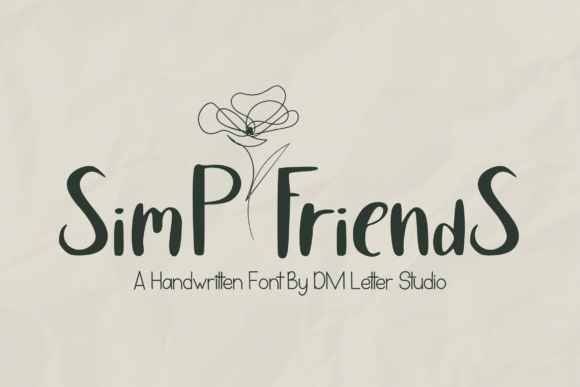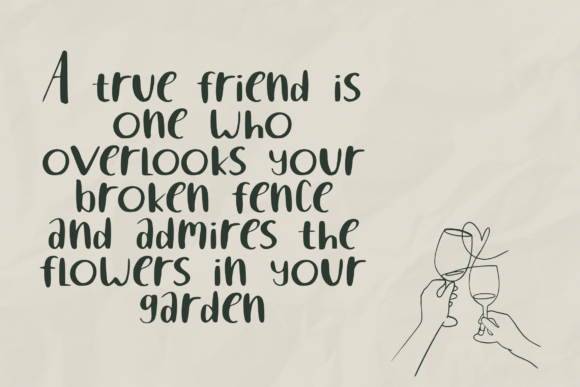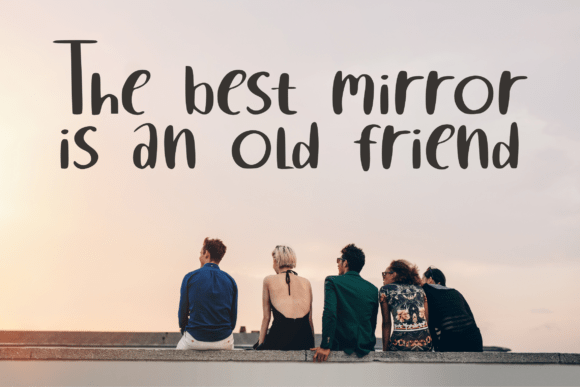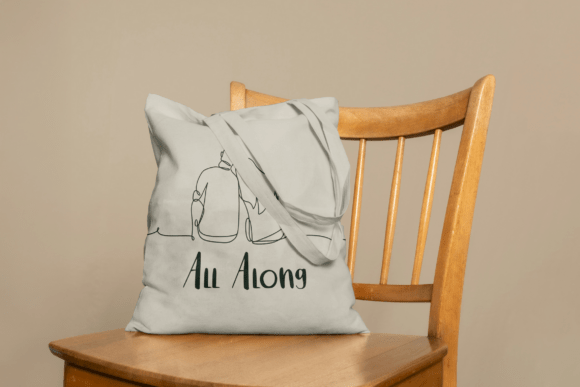
Simp Friends Font: Cute Handwritten Typography for Social Media & Crafts
About the Simp Friends Font
Experience the unique personality of Simp Friends Font, a font designed for impact. Introducing Simp Friends Font – a whimsical blend of contemporary design and handwritten finesse. Thoughtfully crafted to infuse a casual, friendly essence into your creative endeavors, this typeface draws inspiration from delightful doodles and cherished moments of camaraderie. It’s the quintessential choice for sprucing up your social media graphics, infusing charm into lifestyle blogs, making YouTube thumbnails more engaging, enhancing playful branding, and reinforcing the appeal of stickers. The font boasts smooth stokes and a naturally hand-drawn style that exudes warmth and allure while ensuring readability and style effortlessly blend. With Simp Friends Font, give your designs a touch of inviting charm and character.
Simp Friends Font Usage Examples
Simp Friends Font Example